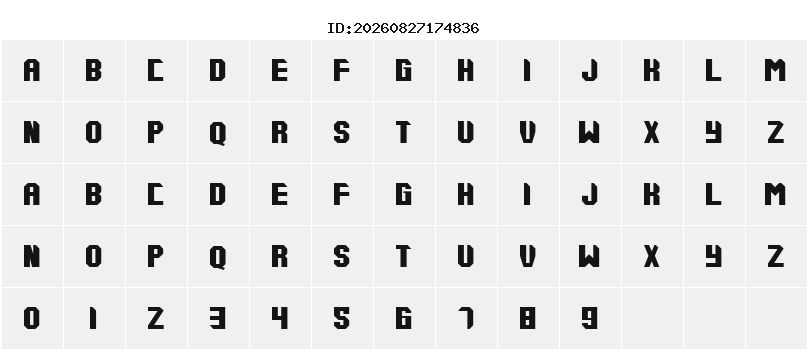
• Font Name: tups000
• Designer: tups
About tups000.ttf
tups000.ttf is a modern, elegant sans-serif font designed for ultimate readability and visual harmony. Perfect for branding, headlines, web design, and print materials.